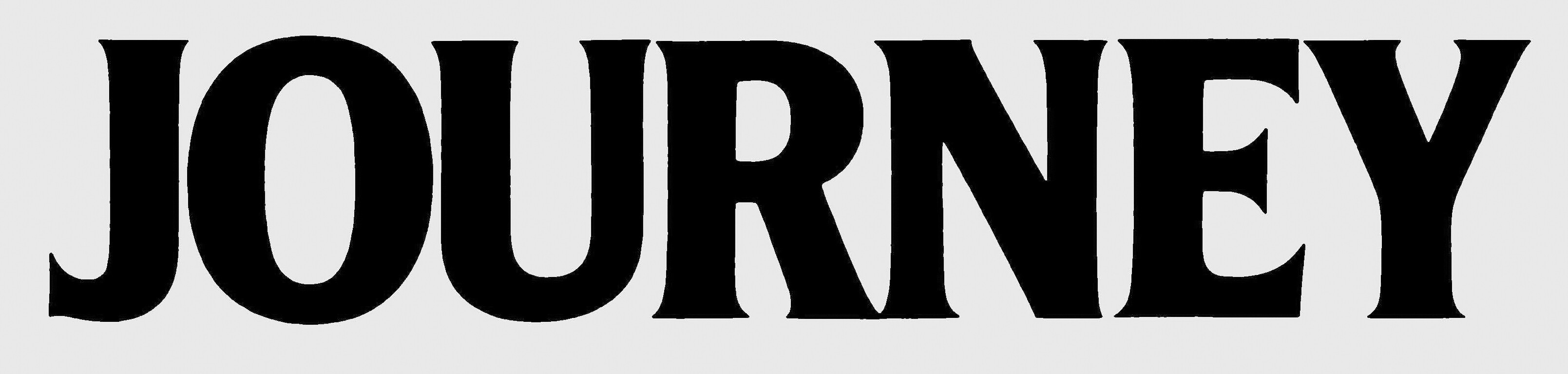
I tried AI identification with no luck, now its up to real intelligence to solve…
That’s from 1989, so the typeface is earlier than that. The closest examples I have found have definite differences. Elan, Flange, Laudatio, and ITC Symbol (by Aldo Novarese; not the Symbol font bundled with every computer) are of the right era.